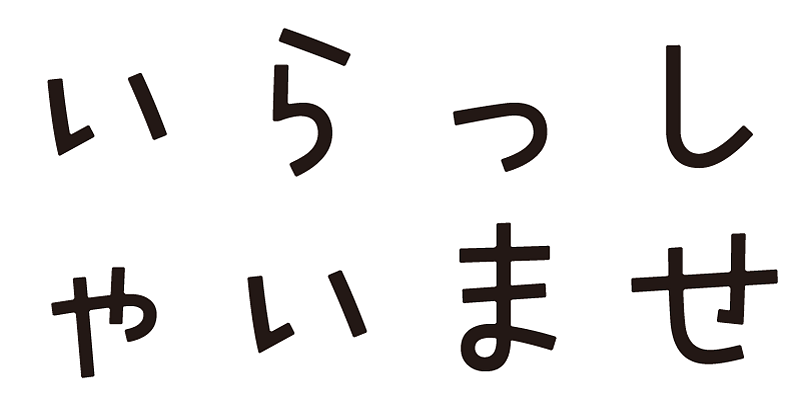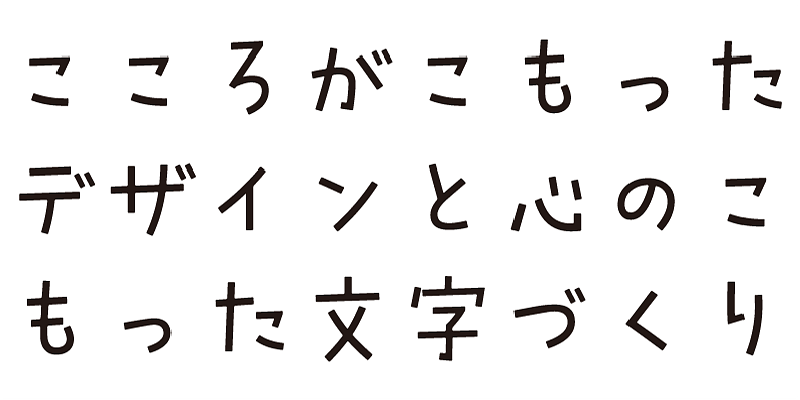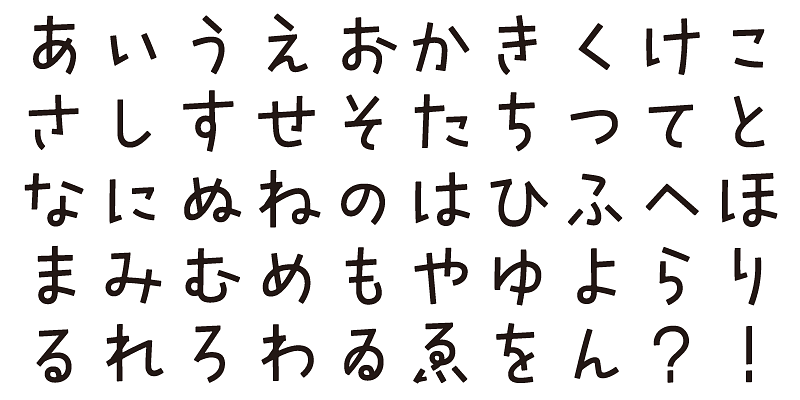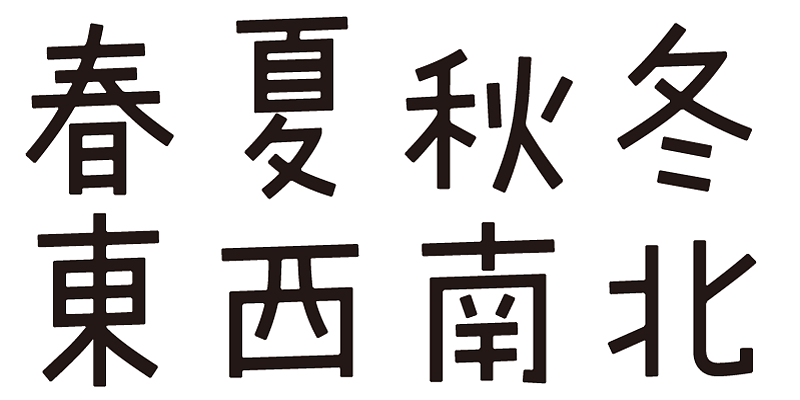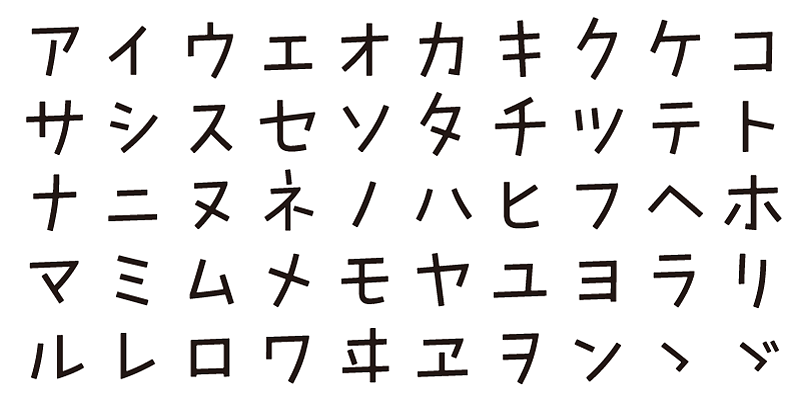
Sarari, sarasara (smooth and flowing). Sukkiri, assari (clear and light). A typeface with a clean, refreshing character.
This font includes top 1,000 kanji characters chosen from character frequency tables made by newspaper companies, publishing houses and linguistic research institutes, plus about 400 alphanumeric, kana characters and punctuation marks.
We design typefaces with the hope that they will add underlying meaning to words expressed. We wish the user to feel good and experience comfort and joy when using these typefaces.